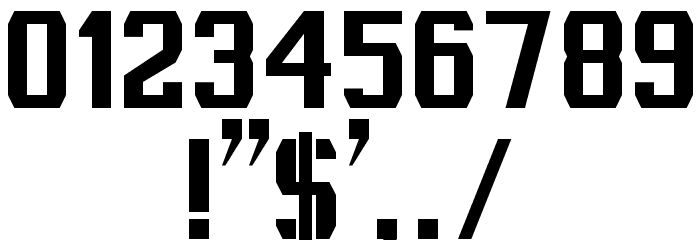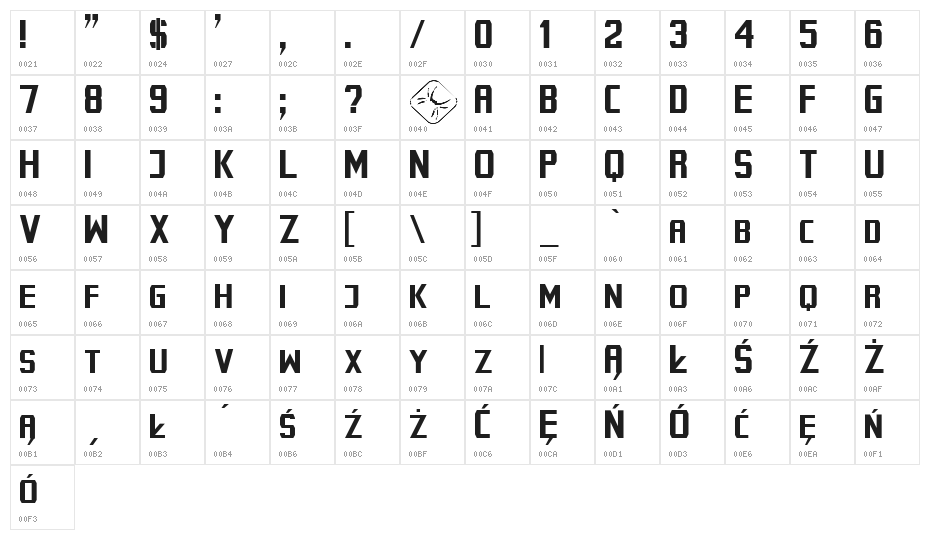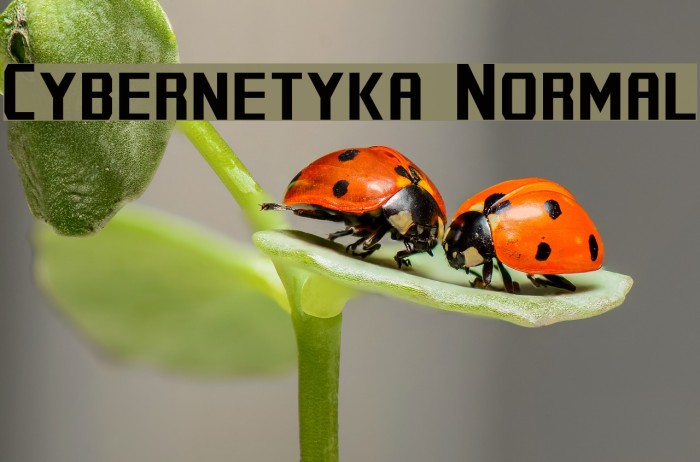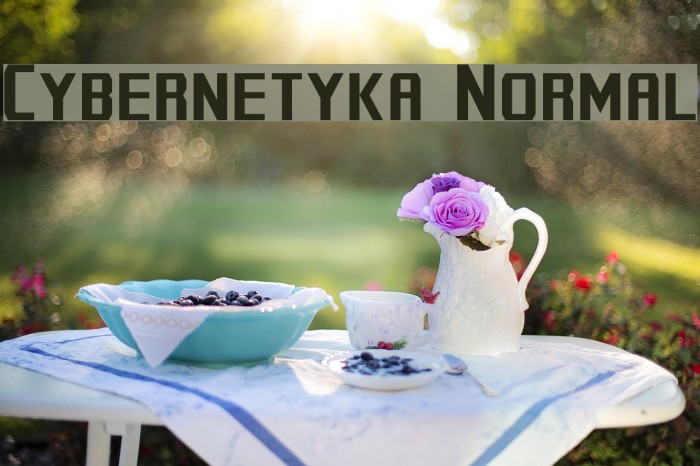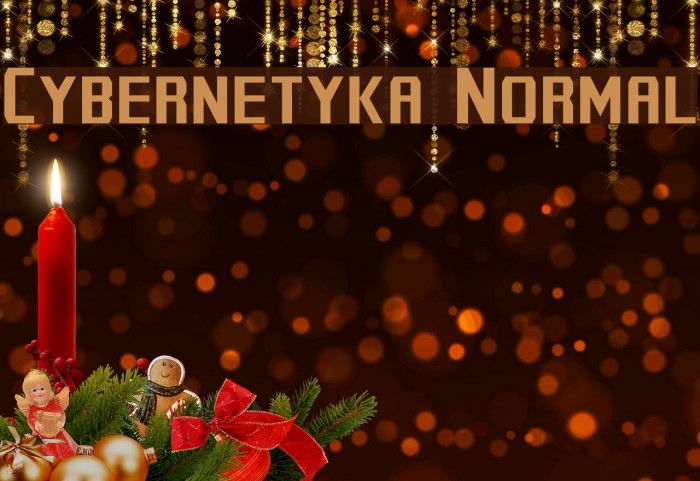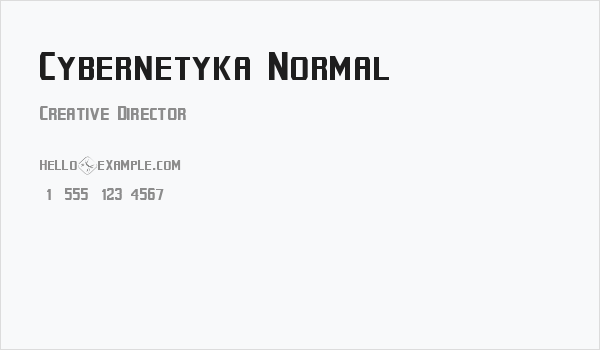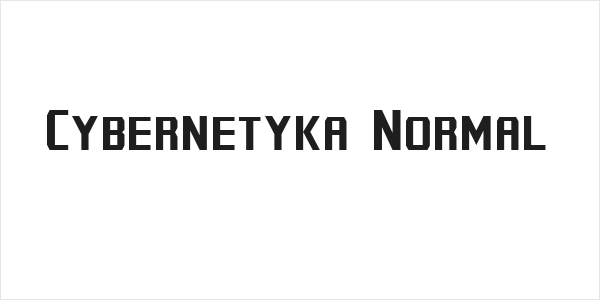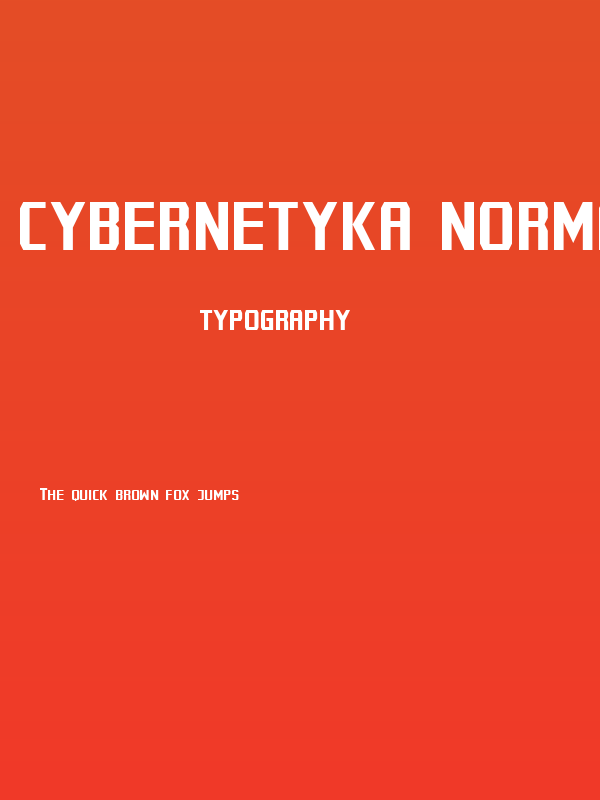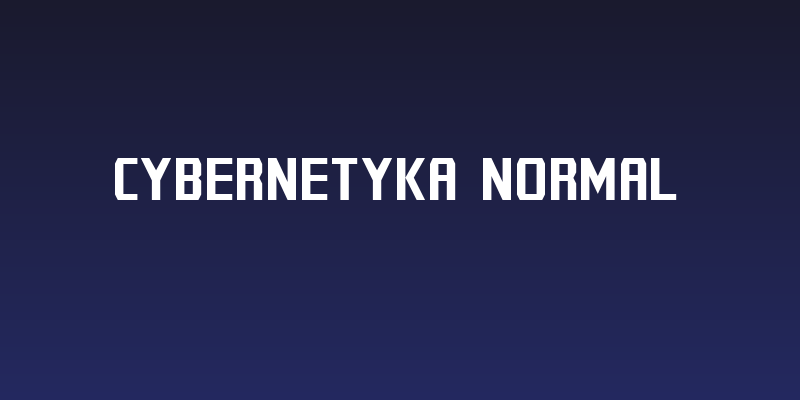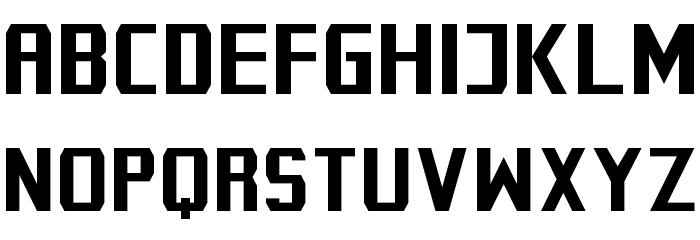
Cybernetyka Normal Font
Cybernetyka Normal Description
This font features a bold and geometric design, characterized by its angular and blocky letterforms. The uppercase and lowercase letters maintain a consistent width, creating a uniform appearance. The numerals are similarly styled, with sharp edges and a futuristic aesthetic. Special characters are designed to match the overall angular theme, enhancing the cohesive look. The font's strong lines and modern style make it suitable for projects that require a bold and impactful visual presence.
| Proposed Projects | Ideal for technology branding, sci-fi themed designs, video game interfaces, and modern posters. |